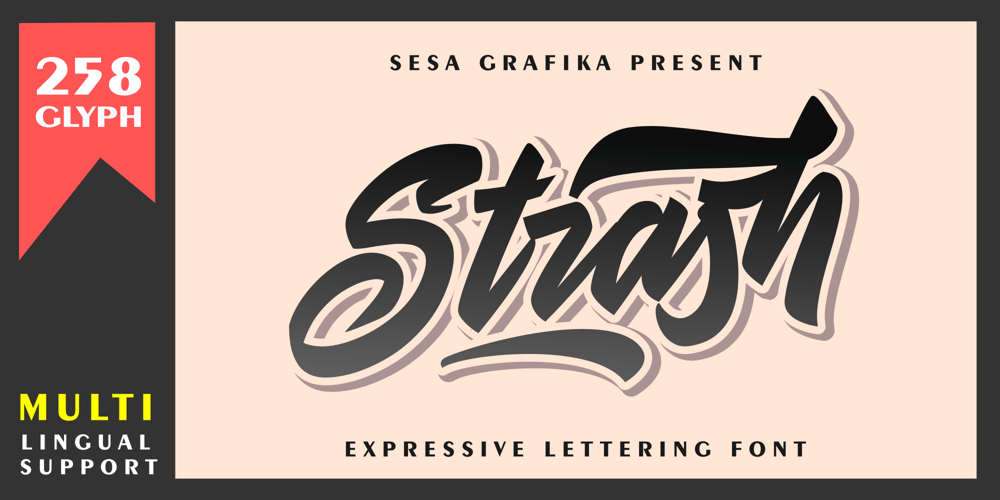
Strash Font Family was designed by Wisesa Purba Giandar and published by Sesa Grafika. Strash contains 1 styles and family package options. Strash is is designed with a natural expressive handwriting style. This font is perfect for Logo Branding, tshirt design, posters and so much more! Remember that the font is PUA encoded, meaning you can access all delightful glyphs and swashes effortlessly.